Take a look at our selection of the top ten best fonts that will be very popular among graphic designers in 2022.
Trends come and go and some seem to stay forever. The world of typography and type design is no exception. Based on current and ongoing trends, we have put together a handpicked selection of the top ten best fonts for use in 2022. Our daily readers may know some of the fonts from our reviews. Thank you very much for your feedback! That really helps to know what’s popular at the moment and to predict what tomorrow’s trends in typeface design will be. Our selection of the ten best fonts for 2022 includes a variety of classics as well as new typefaces and high-quality font families from some of the world’s best type designers and font foundries.
10. TT Ricordi Fonts
TT Ricordi is a set of three elegant display serif fonts designed to significantly diversify the traditional font palette. Designed by the TypeType team including Marina Khodak, Yulia Gonina, and Anna Tikhonova, all three fonts of TT Ricordi are quite similar in thickness. They also share similar character compositions. TT Ricordi supports all Latin-based languages as well as basic Cyrillic letters.
9. Mont Blanc Font Family
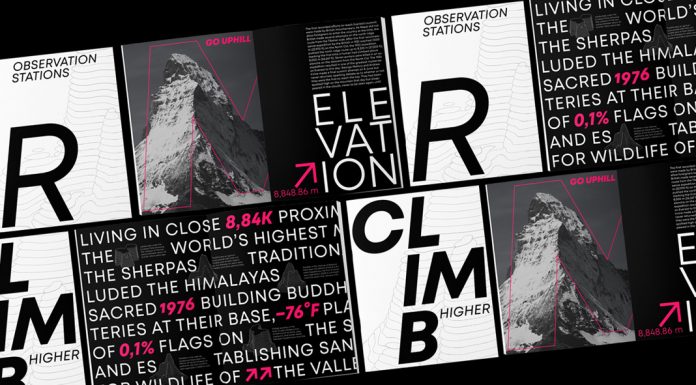
The Mont Blanc font family was designed by Svetoslav Simov and Vika Usmanova for type foundry Fontfabric. It is intended to be an independent flawless text font family inspired by the legendary geometric sans serif, Mont.
8. Gazpacho Font Family
Designed and published by Santi Rey, Gazpacho is an elegant vintage-inspired font family that includes numerous weights plus matching italics. This charming typeface is well suited for striking headlines and logotypes as well as branding, packaging, poster designs, websites, or editorial work. Its high-contrast shapes ensure great readability. Hence, you can also use the font for texts in small sizes.
7. TAN NIMBUS Font
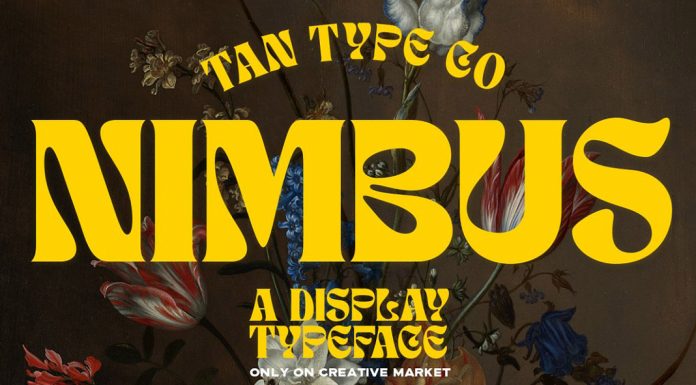
The TAN NIMBUS font was published in 2021 by the team of foundry TanType. If you are looking for something special, maybe something experimental, elegant, and playful with a touch of vintage, this might be the right typeface for you. Its unique, decorative style draws inspiration from the hippie chic of the 1960s as well as psychedelic designs. NIMBUS supports multiple languages and you can use it for headlines, stylish text overlays, posters, clothing, packaging, branding, social media, website headers, and more.
6. Atyp Font Family
Atyp is a functional, geometric font family from Suitcase Type Foundry. Designed by Tomáš Brousil, Atyp was created by adapting a typeface originally made for a commercial television station. Its design is inspired by geometric constructions of the Bauhaus movement. The subtle details of each character and the microscopic adjustments evoke the illusion of uniformity and mechanical purity.
5. Osbourne Font Family
Revised by the Latinotype team, Osbourne is a display typeface with titles based on the Salem typeface, which was originally designed and published by Keystone Type Foundry. In addition to the default version, Osbourne comes with two other versions: one that is sharper and another with wide alternatives to the circular characters. Between these and its five weights, the family has a range of unique personalities to meet different needs. You can use it for titles, branding, short texts, etc.
4. TT Travels Next Font Family
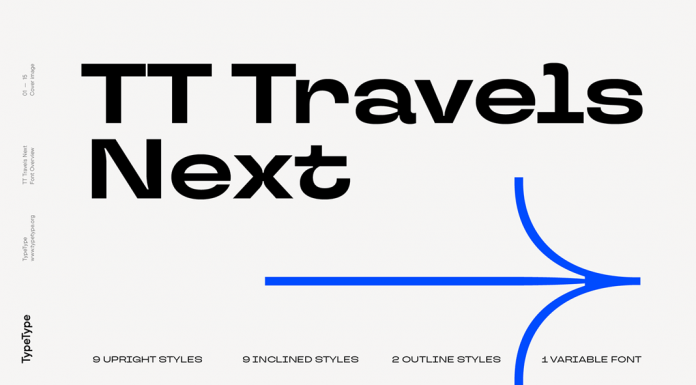
TT Travels Next is based on a trendy wide display sans serif that comes with unique characteristics. You can use it for a wide range of designs including print and web projects. With its very wide proportions and characters as well as its exaggerated closed aperture, low contrast, and the great mix of soft and sharp shapes, the TT Travels Next font family is a real eye-catcher. TT Travels Next is also equipped with two outline styles that match the upright styles perfectly.
3. Cotford Font Family
Cotford is a Monotype release that was designed by Tom Foley and the Monotype Studio. With the attention to detail demanded by the 21st century, the Cotford font family is a celebration of simplicity, shape, and form.
2. Arsenica Font Family
Published by Zetafonts, the Arsenica font family has been designed by Francesco Canovaro and developed by a team including Mario De Libero, Andrea Tartarelli, and Cosimo Lorenzo Pancini. The design of the Arsenica typeface draws inspiration from classic Italian poster designs.
1. Helvetica Now Variable Font
During the past years, we experienced a growing demand for variable fonts. While traditional font formats require multiple files for multiple variations, variable fonts package all the necessary DNA into one tidy, more compact file. In other words, variable fonts give you all the freedom to focus on your design without worrying about fixed font widths and weights. So it’s no surprise that Monotype has finally launched Helvetica Now as a variable font.
That was our selection of the top ten best fonts for 2022. For those who want to see more styles, feel free to browse through our recommended Fonts category. Update: Take a look at our selection of the best fonts for 2023.